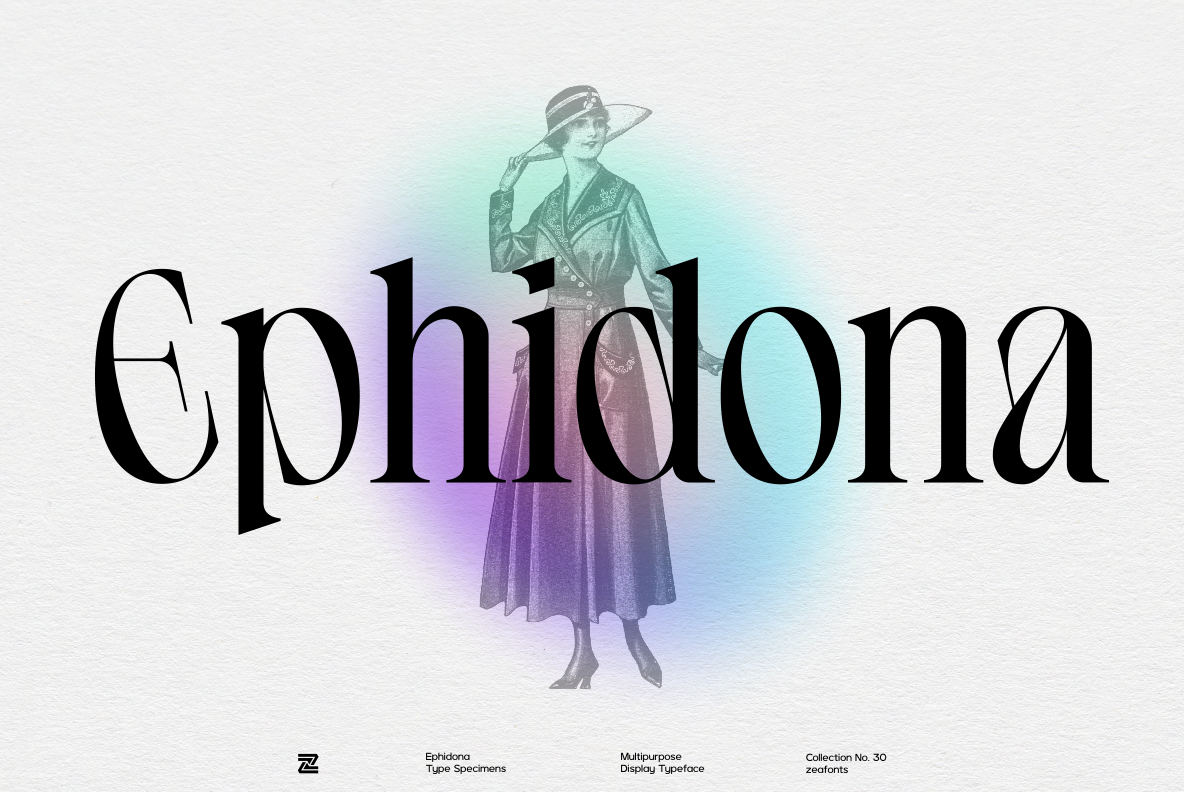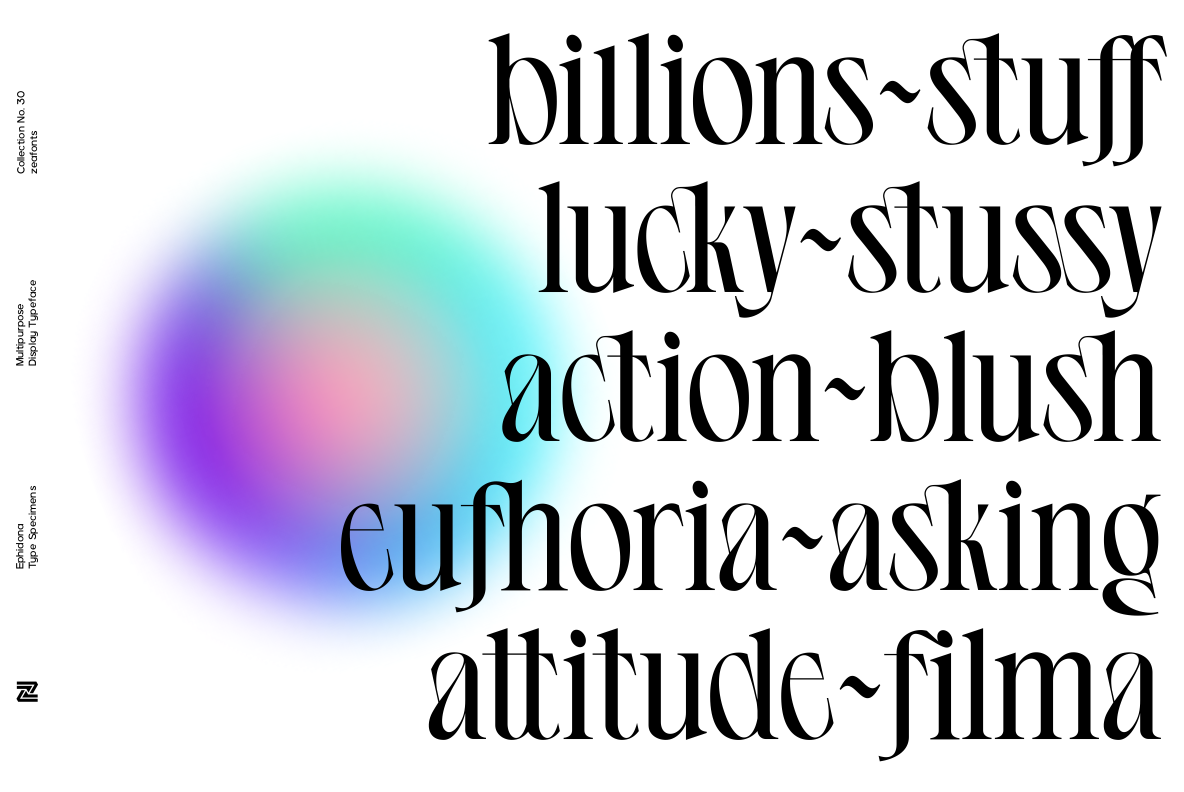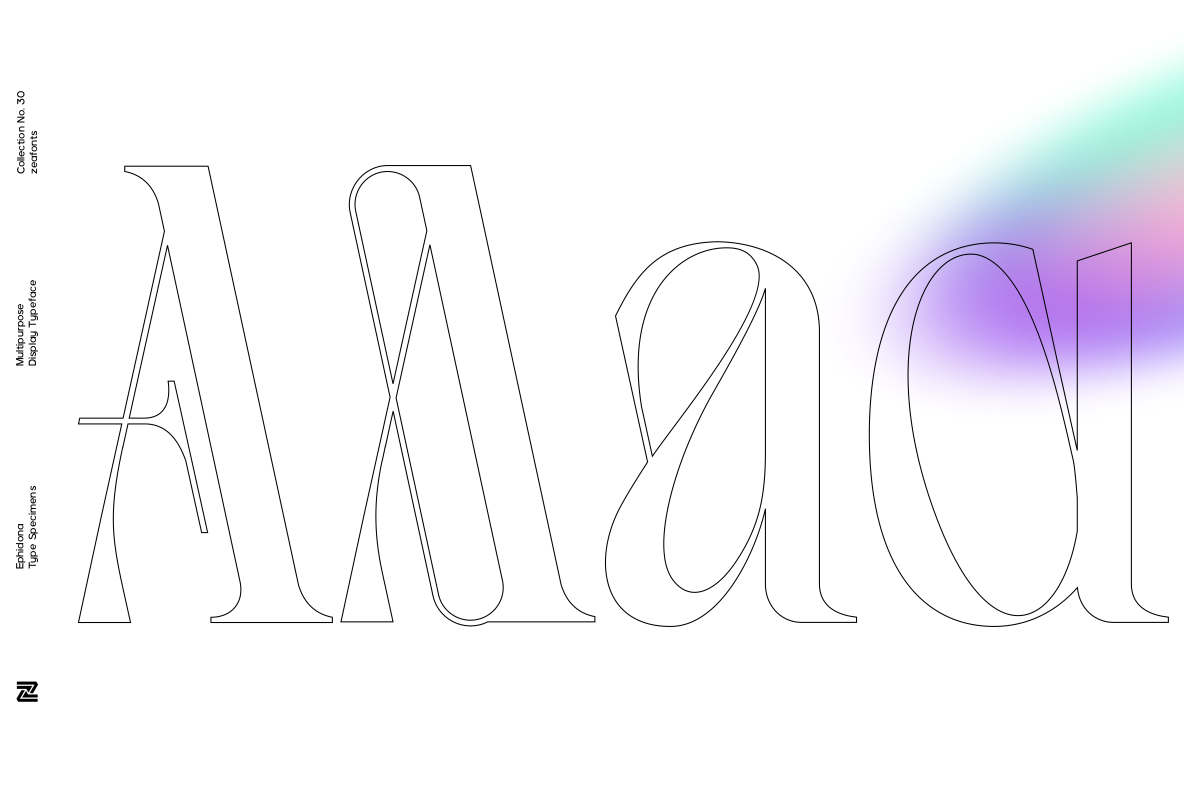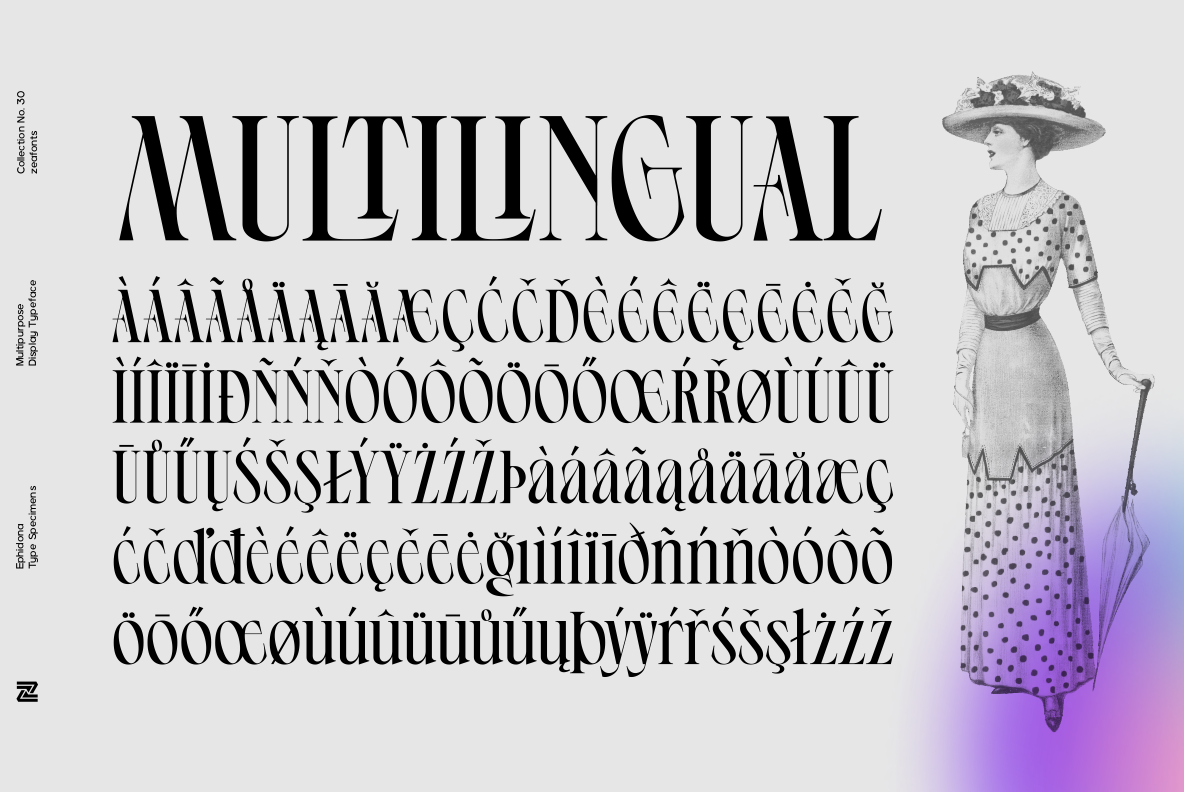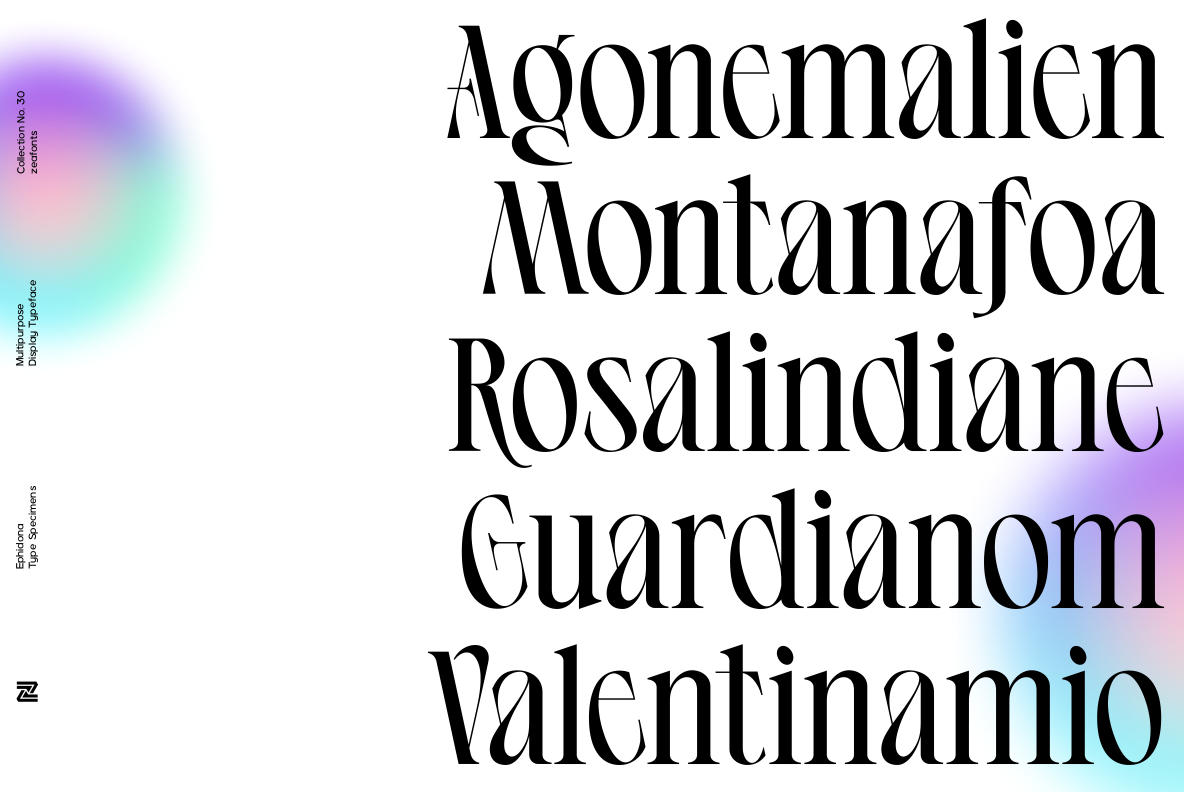
Ephidona is high contrast serif font features a mixed modern-classic design. Ephidona support multilingual languages, numbers, punctuation and alternative-ligatures.
Create unique & beautiful logotype,  use it as an elegant solution for your next magazine layout, or choose Ephidona for any graphics that require a sleek look with a elegant flair.
EPHIDONA